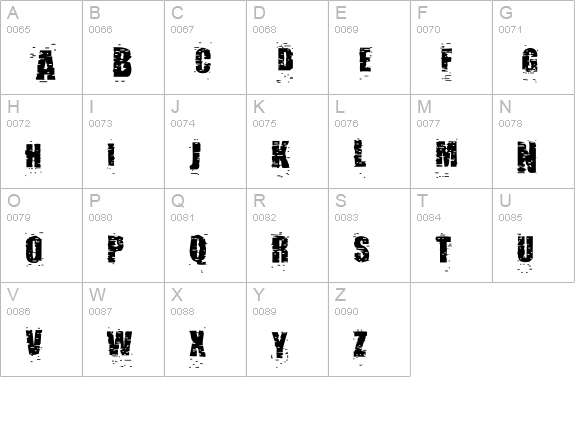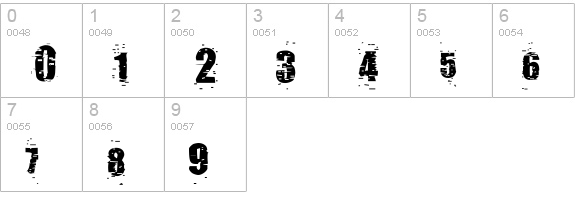
pUNKASSBITCH Font Details
Introducing the bold and edgy pUNKASSBITCH font, a rebellious typeface that exudes attitude and personality. With its sharp lines and unconventional style, this font is perfect for making a bold statement in your designs. Whether you're looking to add a touch of punk rock flair or simply want to stand out from the crowd, pUNKASSBITCH is sure to make a lasting impression. Best of all, pUNKASSBITCH is available for free download at FontsMarket.com. This means you can easily add this unique font to your collection without breaking the bank. So go ahead, unleash your inner rebel and download pUNKASSBITCH today to add a touch of punk-inspired flair to your projects!